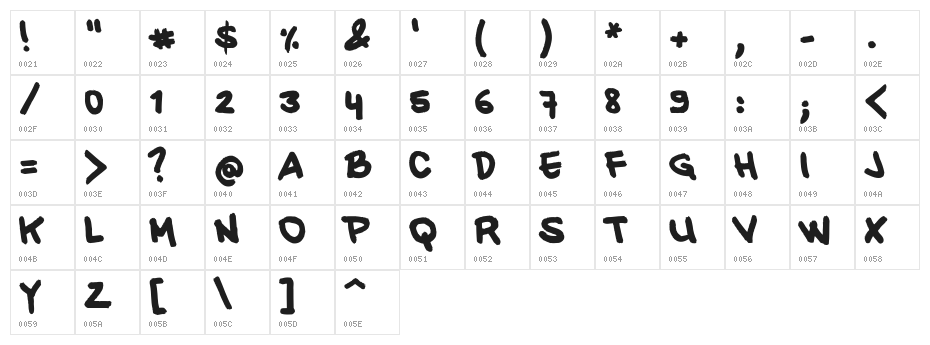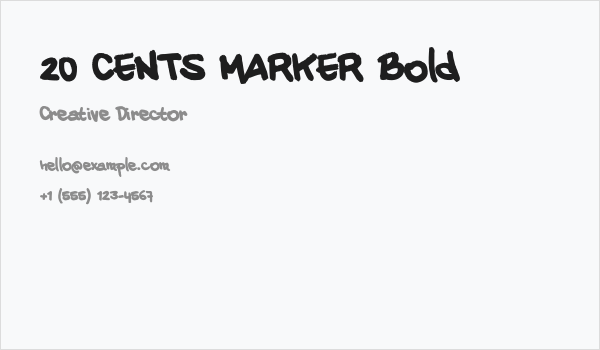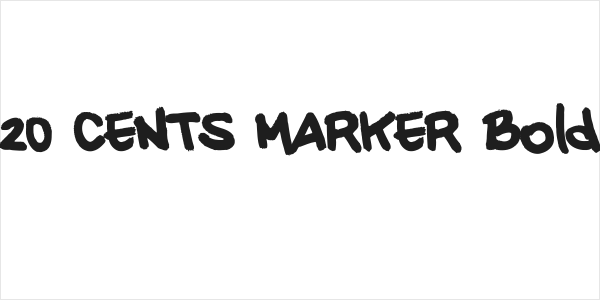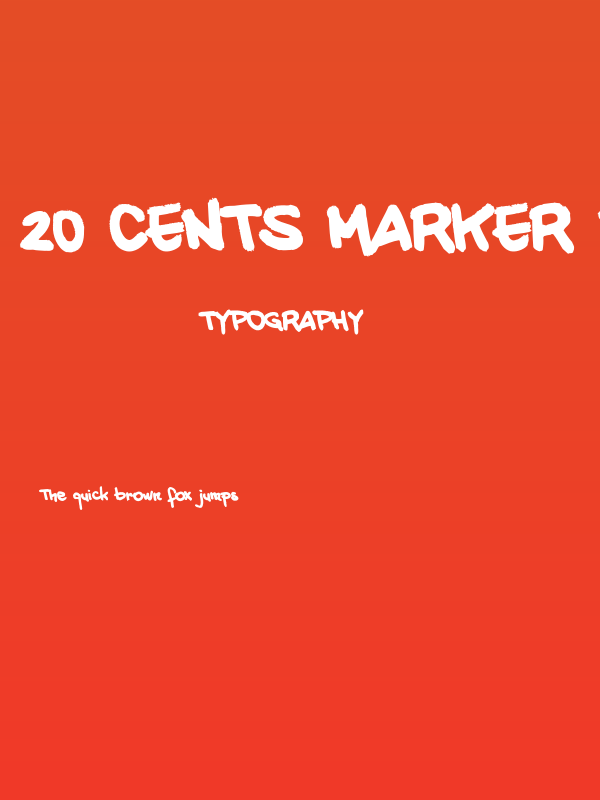
20 CENTS MARKER Bold Font
20 CENTS MARKER Bold Description
This bold, handwritten font exudes a casual and energetic vibe, reminiscent of marker or brush strokes. The characters are thick and bold, with a slightly irregular and playful appearance, giving it a dynamic and informal feel. The uppercase and lowercase letters maintain a consistent style, with rounded edges and a slightly uneven baseline, enhancing its hand-drawn aesthetic. The numerals and special characters follow the same bold and lively design, making them easily legible and visually appealing. This font is perfect for projects that require a personal touch or a sense of spontaneity.